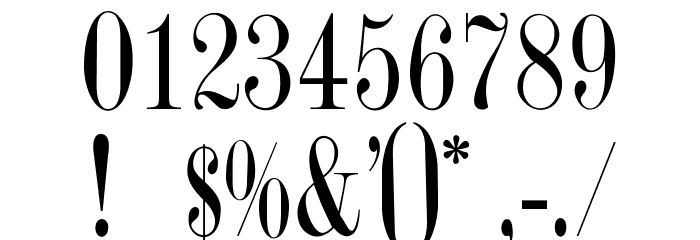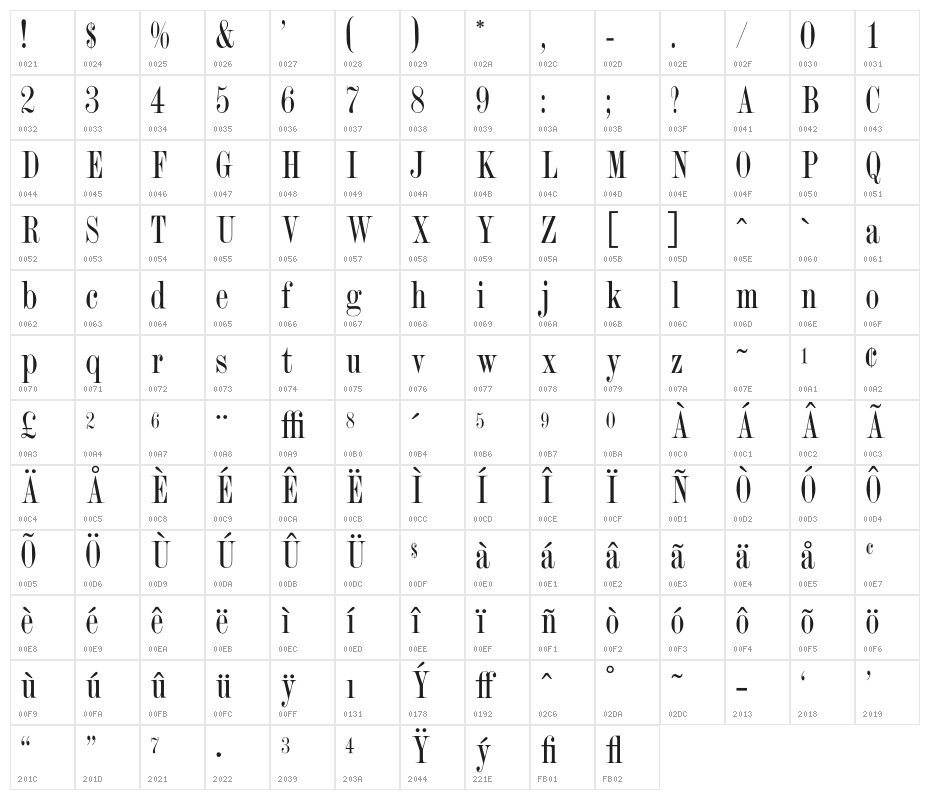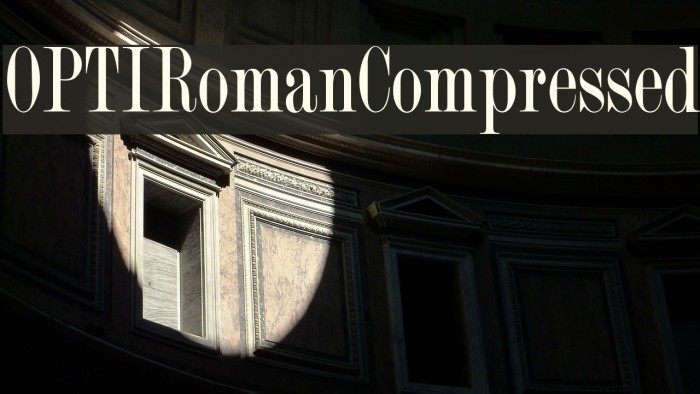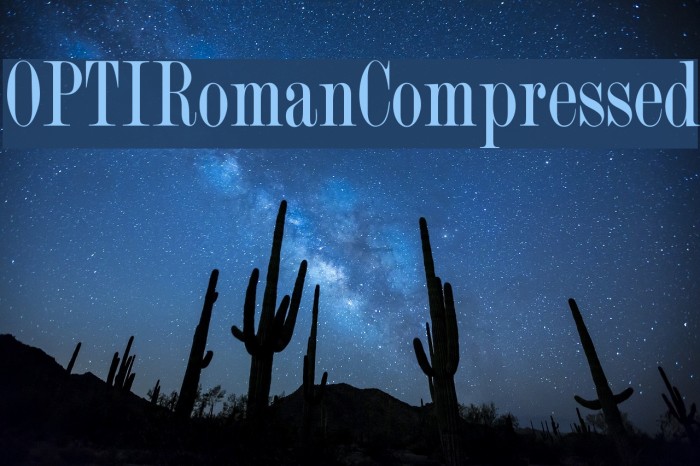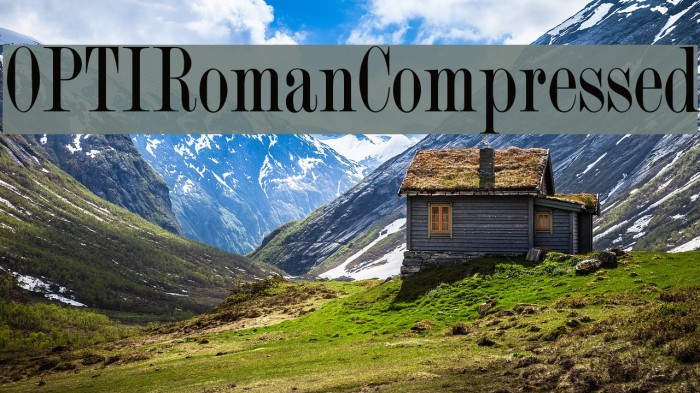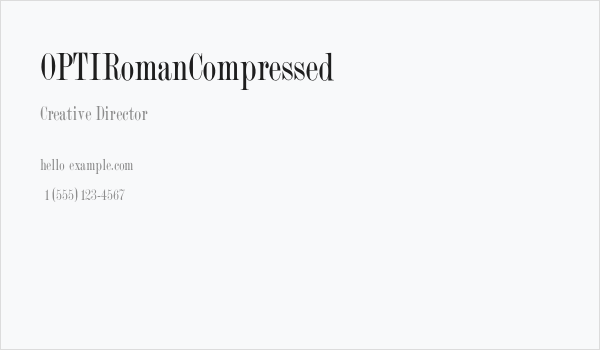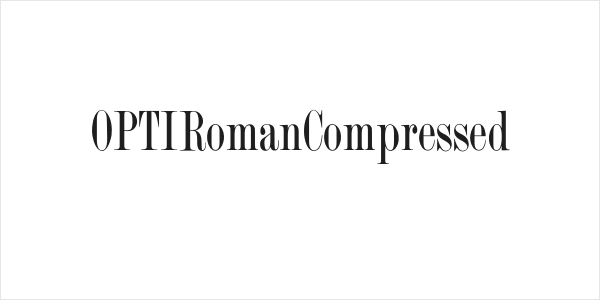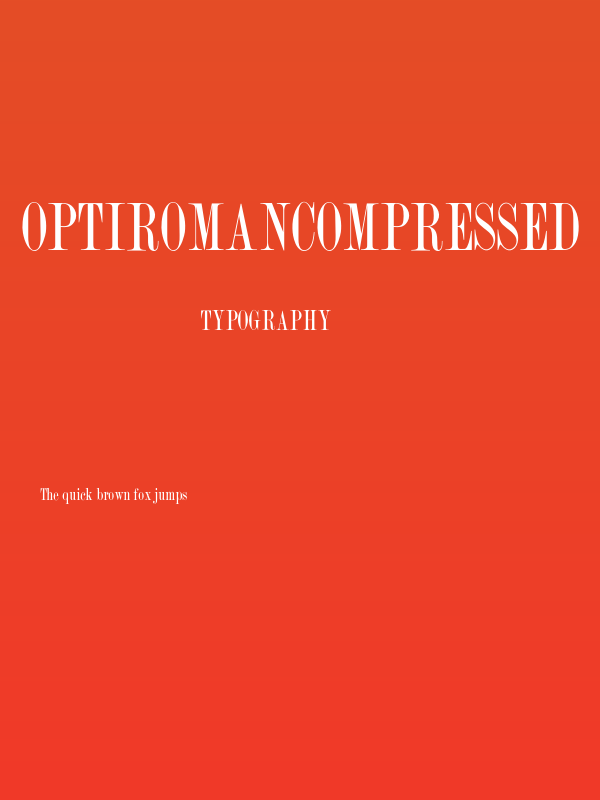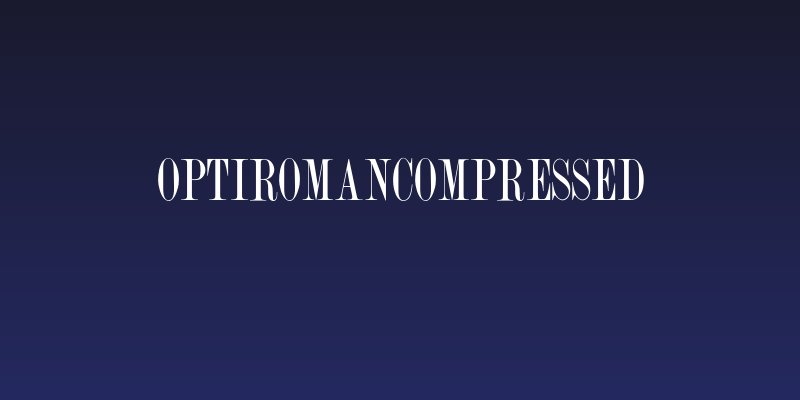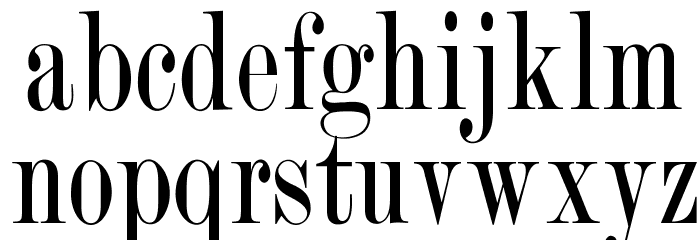
OPTIRomanCompressed Font
OPTIRomanCompressed Description
This font features a classic serif style with a compressed appearance, giving it an elegant and sophisticated look. The uppercase letters are tall and narrow, while the lowercase letters maintain a consistent height, enhancing readability. The numerals are distinct and well-proportioned, matching the overall aesthetic of the typeface. Special characters are designed with the same attention to detail, ensuring uniformity across all glyphs. The strokes are moderately thick, providing a medium contrast that balances the boldness with legibility. This font is suitable for projects that require a touch of refinement and tradition.
| Proposed Projects | Ideal for editorial design, book covers, formal invitations, and branding projects that require a sophisticated touch. |